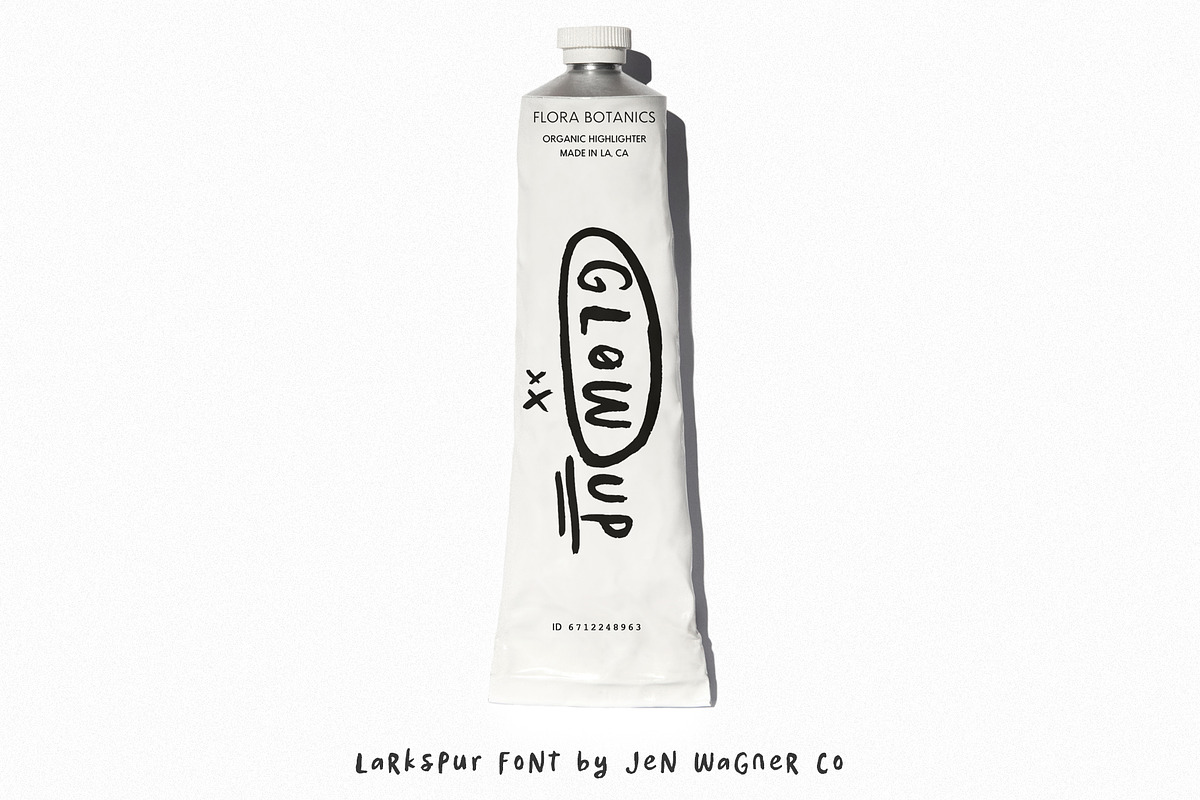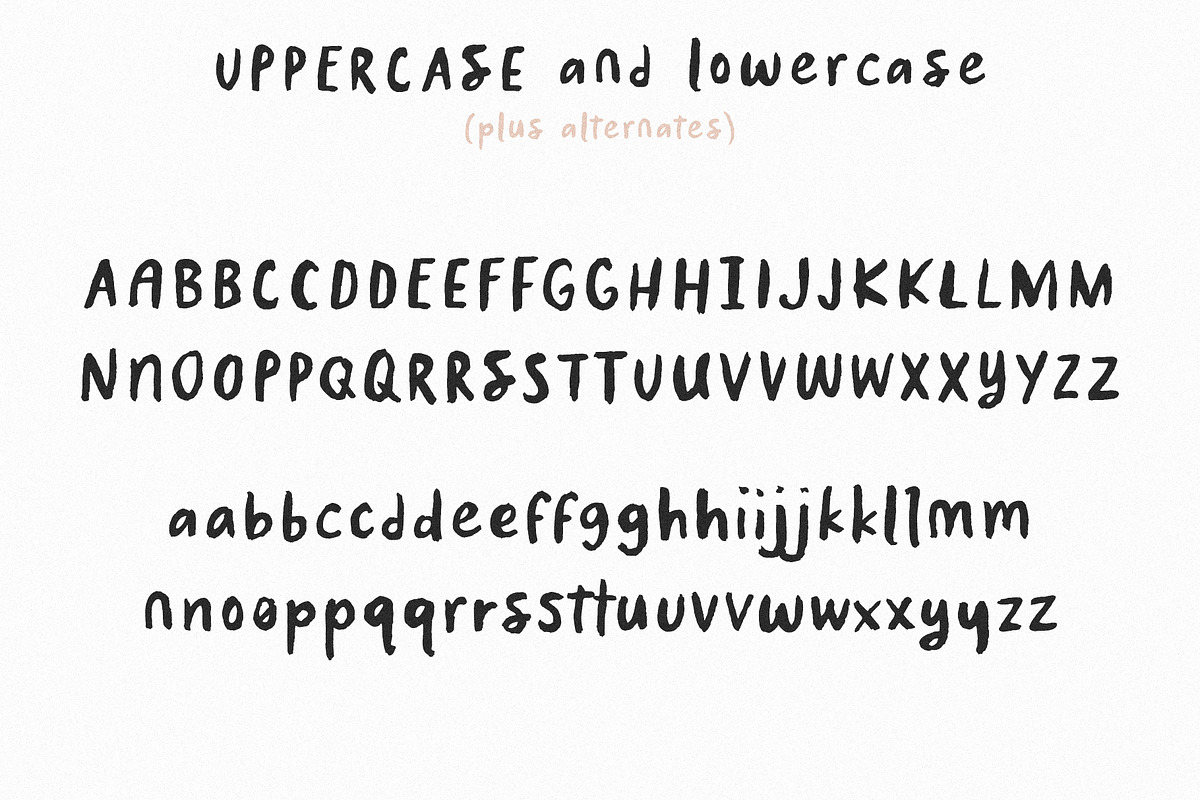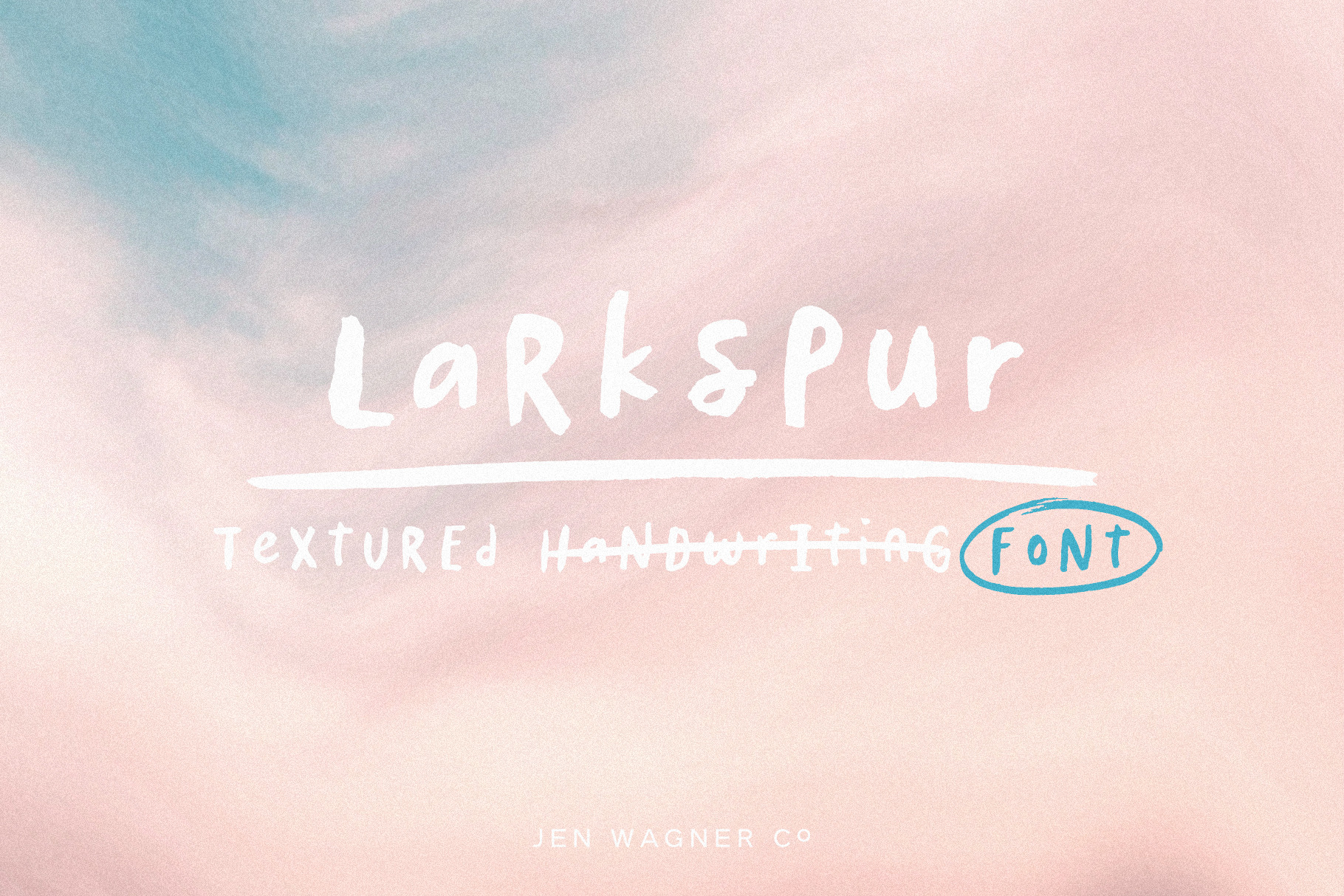
Larkspur | A Textured Quotes Font
- Larkspur Regular: Uppercase letters, lowercase letters, numbers, & extended punctuation
- Larkspur Alternate: Uppercase letters, lowercase letters, numbers, & extended punctuation
- Larkspur Shapes: 26 decorative shapes accessible with letters A-Z
- Non-English support for the international designer
- Same stroke thickness with uppercase and lowercase, so you can mix and match!
- Alternates for each letter and number, so your designs look totally custom and hand-made
- Authentic brush texture with rough edges
I am obsessed with this new font! Inspired by getting off-screen and making something by hand, it's perfect for creating handwritten quotes, logos, or just adding a personal touch to any project!
While other handwritten fonts can make it difficult to alternate uppercase and lowercase, Larkspur is designed to use both cases interchangeably, helping you create a unique look that makes your text look hand-made! (For example, "Larkspur" is actually typed "LaRksPur")
Larkspur also has alternates for each letter and number, so you can avoid the "letter patterns" we see in handwritten fonts. For example, if you type "OO", just switch one of the O's to Larkspur Alternate for a totally different character. You can also try mixing uppercase and lowercase by typing "Oo"!